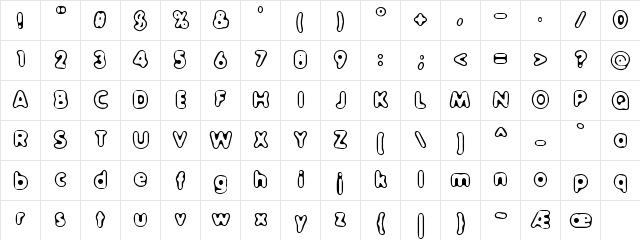
Outer Sider BRK Regular
Foundry: ￿IGMA FONTS
Designer: ￿IGMA FONTS - Brian Kent
Complete Outer Sider BRK Regular glyph index. Displaying only characters natively supported by Outer Sider BRK Regular font.
Design Context for Outer Sider BRK
Outer Sider BRK is a composed and adaptable typeface that performs quietly and consistently across a wide range of design contexts.
Who designed the Outer Sider BRK Regular font?